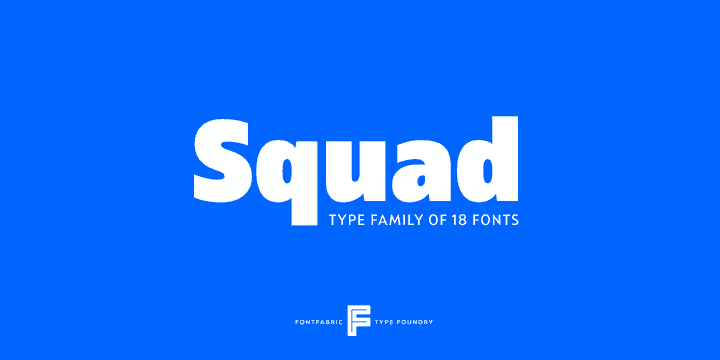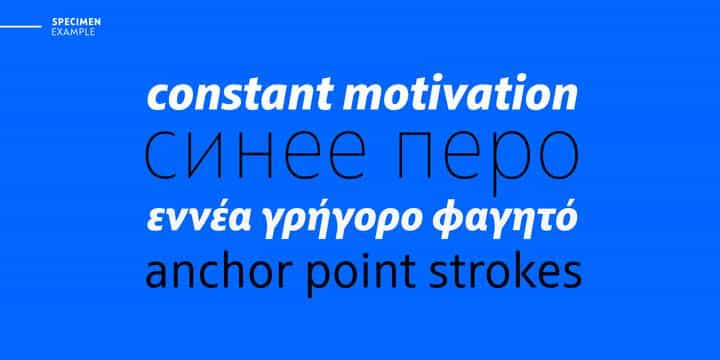
The Squad font family was developed and released by Fontfabric. Coming from the perfection style of Adrian Frutiger, this typeface gives humanist traditions modern simplicity – with balanced shapes, sharp outline and shining appearance for every design need.